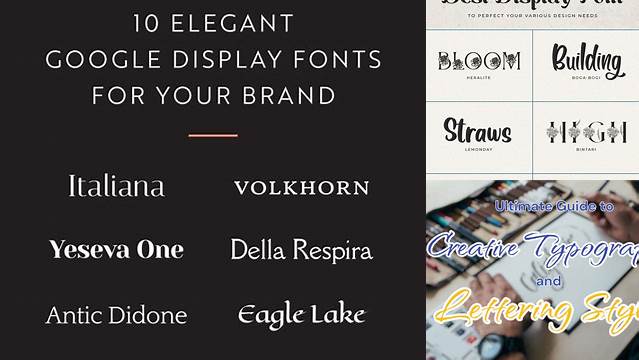
Free Google Display Fonts: Your Design Guide
Hey guys! Ever found yourself staring at a blank canvas, itching to make your words pop? Maybe you're designing a poster, sprucing up a website, or just want to give your social media a fresh look. That's where free display fonts from Google come in! They're your secret weapon for injecting personality and pizzazz into any project. In this guide, we'll dive deep into the world of display fonts, explore where to find the best ones on Google Fonts, and give you some tips on how to use them effectively. Let's get started, shall we?
What are Display Fonts, and Why Do You Need Them?
First things first: what exactly are display fonts? Unlike those workhorse fonts like Arial or Times New Roman, which are designed for readability in long blocks of text, display fonts are all about making a statement. They're the bold, the beautiful, the eye-catching members of the font family. Think of them as the Instagram models of the typography world – they're designed to grab attention and look good doing it! Display fonts come in a vast array of styles, from elegant serifs and playful scripts to bold sans-serifs and quirky decorative options. They're perfect for headlines, titles, short bursts of text, and anywhere you want to inject a dose of personality. Why do you need them? Well, in a world saturated with information, you need to stand out. A well-chosen display font can instantly elevate your design, making it more memorable and engaging. It's like choosing the perfect outfit – it can completely transform your look. Using a captivating display font can significantly improve the visual appeal of your designs, making them more likely to grab attention and leave a lasting impression on your audience. The strategic use of display fonts can also convey the right mood or message. A playful font might be perfect for a children's book, while a sophisticated serif font could lend a touch of elegance to a luxury brand's website. When choosing display fonts, think about the overall tone you're trying to achieve. Are you aiming for fun and whimsical, or sleek and professional? Selecting the right display font is like adding the perfect seasoning to a dish—it can transform the ordinary into the extraordinary.
Choosing the right display fonts involves understanding the subtle nuances of font styles and how they interact with your overall design. For instance, serif fonts, characterized by small decorative strokes at the end of each letter, often evoke a sense of tradition and sophistication. They can be ideal for formal invitations or branding that aims for a classic aesthetic. On the other hand, sans-serif fonts, which lack these strokes, typically convey a more modern and clean look, making them suitable for technology websites or contemporary marketing materials. Beyond aesthetics, the legibility of your chosen font is also crucial. Ensure that the display font you select is easy to read, especially in the context where it will be used. Consider the size, spacing, and the background of your text; a font that looks great on a large poster might be difficult to read on a small mobile screen. Furthermore, think about the personality of the font and whether it aligns with your brand's values and the message you're trying to convey. For example, a hand-drawn font might be perfect for a craft business, while a futuristic font could work for a tech startup. Display fonts can significantly enhance the impact of your content by making it more engaging and memorable. When integrated thoughtfully into your design, they help create a cohesive and compelling visual narrative.
Google Fonts: Your Free Typography Playground
Now, let's get to the good stuff: Google Fonts. This is your treasure trove of free, open-source fonts, including a fantastic selection of display fonts. The best part? They're all free to use, even for commercial projects! Google Fonts is incredibly user-friendly. You can browse fonts by category (serif, sans-serif, handwriting, etc.), style, and even language. You can also filter by font properties like thickness, width, and slant. This makes it easy to find the perfect font for your project. The site also provides detailed information about each font, including its license, recommended pairings, and previews. It's like having a personal font assistant! To get started, head over to fonts.google.com. Browse the collection and start exploring! The possibilities are endless. Once you've found a font you like, it's easy to download or embed it in your website. Google Fonts provides simple instructions for both methods.
Google Fonts, recognized globally for its extensive and accessible library of fonts, offers a diverse collection that caters to a variety of design needs. The platform’s strength lies not only in its vastness but also in its ease of use and the quality of its fonts. Each font is carefully curated to ensure it meets high standards of legibility and design. The significance of Google Fonts extends beyond mere font provision; it promotes inclusivity by providing fonts in various languages and scripts, making global design accessible to all. The ability to use these fonts freely, even for commercial purposes, is a significant advantage, especially for small businesses and individual creators who might have budget constraints. The platform's search and filtering tools are particularly useful for identifying the right font quickly. Users can browse by category, such as serif, sans-serif, or display, or they can sort by style and language support.
Top Display Fonts to Try on Google Fonts
Alright, let's get down to brass tacks. Here are some of the top display fonts you can find on Google Fonts, categorized for your convenience:
Bold & Modern:
- Bebas Neue: A super-popular, tall, and narrow sans-serif that's perfect for headlines and titles.
- Anton: Another strong sans-serif, great for a punchy, impactful look.
- Oswald: A condensed sans-serif, perfect for getting a lot of text into a small space.
Elegant & Classic:
- Playfair Display: A beautiful serif font with a classic, elegant feel.
- Cinzel: A serif font with a strong, historical vibe.
- Lora: A well-balanced serif font that's both modern and classic.
Playful & Unique:
- Fredoka One: A rounded, friendly sans-serif that's great for a playful vibe.
- Luckiest Guy: A fun, handwritten-style font.
- Pacifico: A stylish script font.
These are just a few examples, of course. Google Fonts has tons of other great options. To ensure your designs resonate with your audience, choose fonts that align with the personality of your brand and the message you want to convey. Don’t be afraid to experiment with different font combinations to create unique and memorable visual experiences. Take advantage of the font previews and try out different sizes and styles to understand how they will look in your project. Google Fonts offers numerous display fonts, each with its unique character and style. The ideal font can significantly enhance the appeal of your designs. Careful consideration of font choices will elevate the visual impact and make your designs truly stand out.
When choosing a display font, remember that readability and visual impact are not mutually exclusive. Even the most stylish fonts need to be legible. Pay close attention to the spacing between letters and the overall design of the characters to ensure that the font is easy on the eyes. Consider also the context in which the font will be used. A display font that works beautifully on a large poster might be less effective on a small mobile screen. Experimenting with different sizes and styles is a crucial step in the font selection process. Google Fonts provides excellent previews that allow you to visualize how a font will look in various scenarios. Use these tools to find the perfect display font for your project.
Conclusion: Unleash Your Inner Typographer!
Using free display fonts from Google is a fantastic way to level up your designs and add a touch of personality. With so many options to choose from, you're sure to find the perfect fonts for your projects. So go forth, explore, and have fun creating! And remember, have fun experimenting and finding what works best for your style. Happy designing, friends!